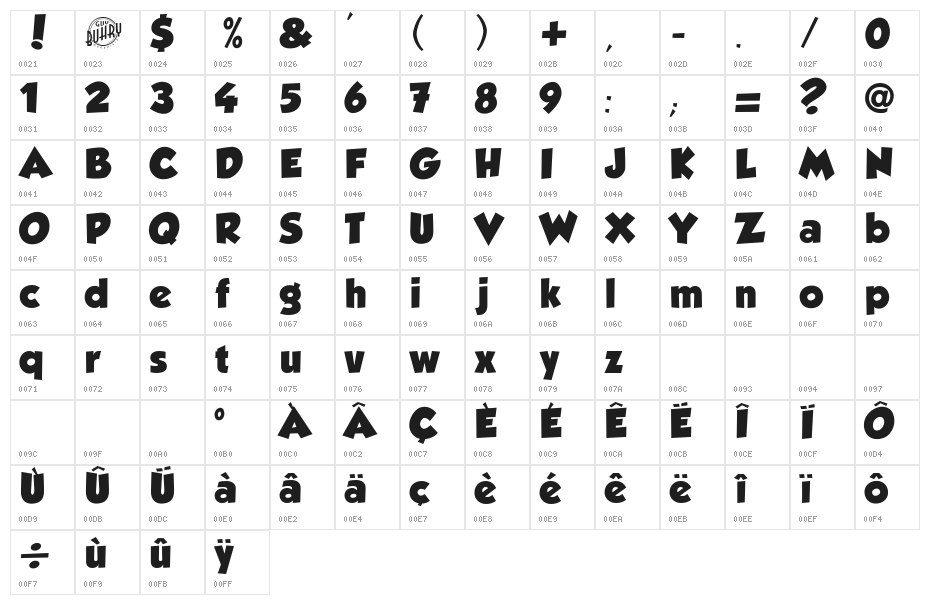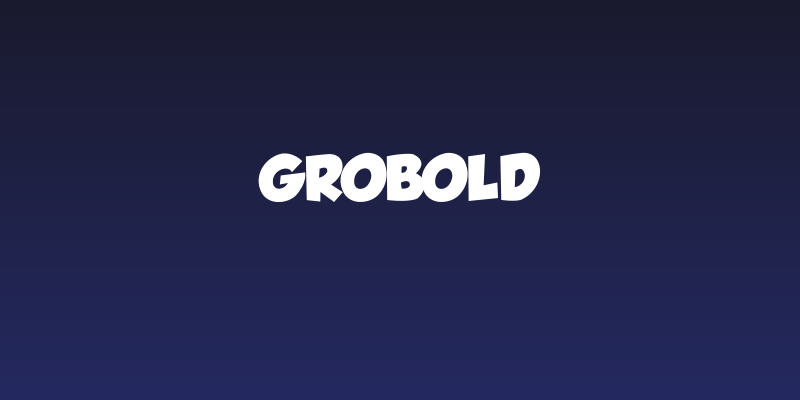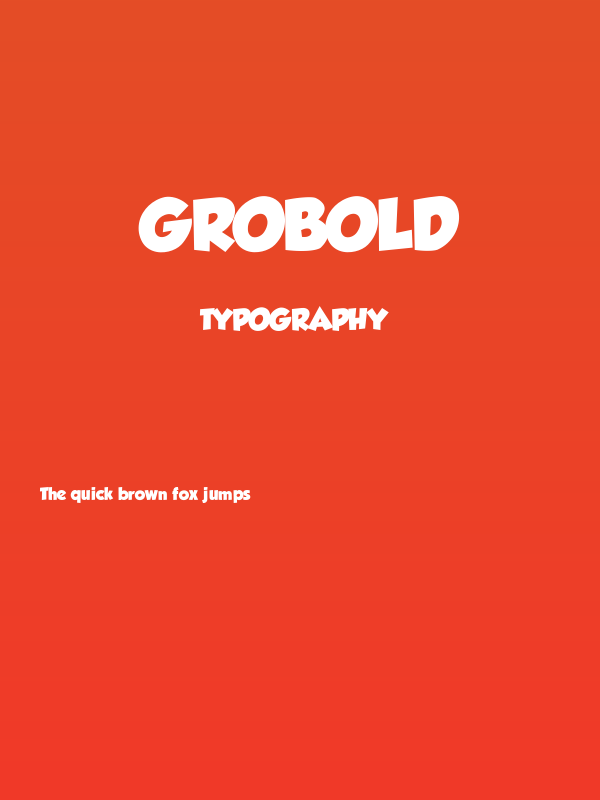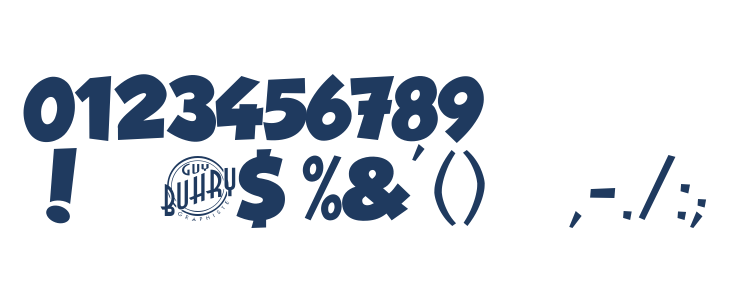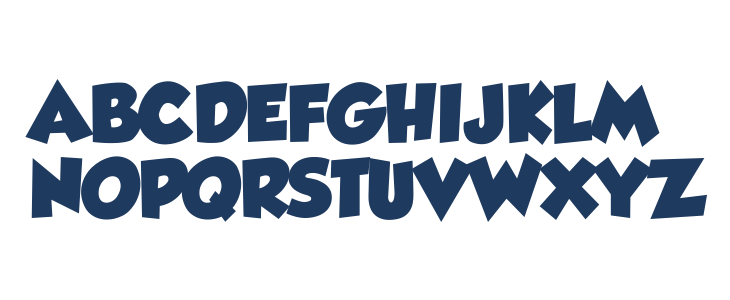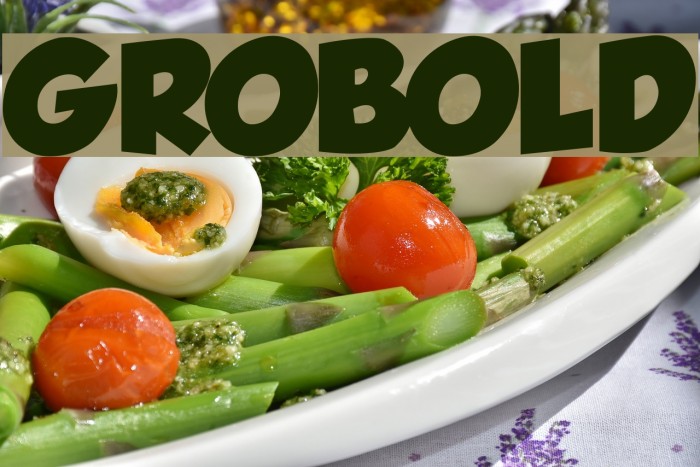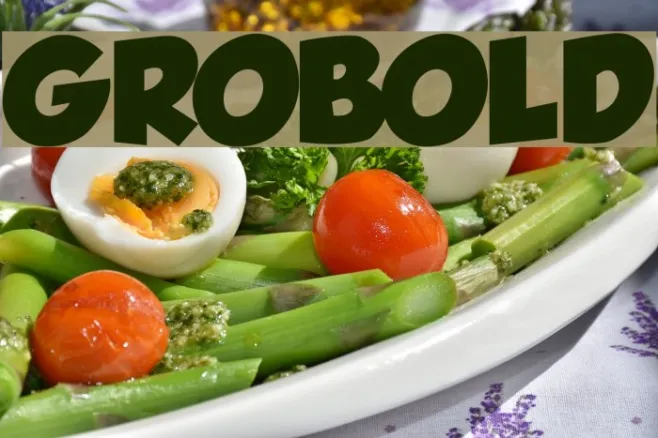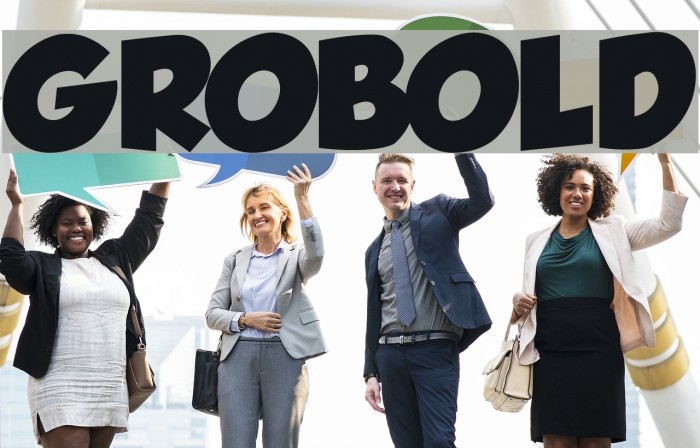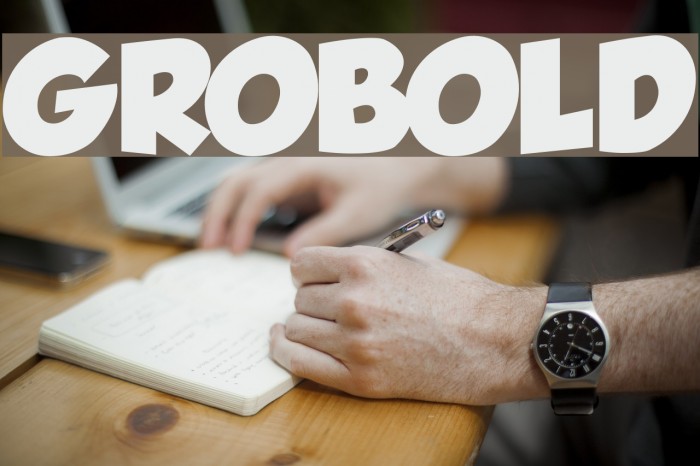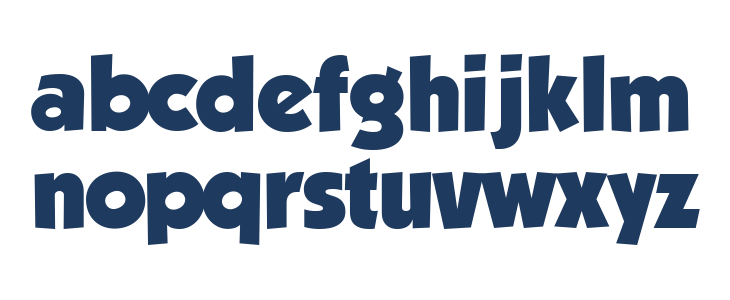
GROBOLD Font
GROBOLD Description
This font features bold, playful characters with a strong presence, making it ideal for attention-grabbing designs. The uppercase letters are particularly striking, with a slightly condensed style that adds to their impact. The lowercase letters maintain the boldness, ensuring consistency across text. Numbers and special characters are equally robust, contributing to the font's overall cohesive look. The thick strokes and slight angularity give it a modern yet fun appearance, suitable for various creative projects.
| Proposed Projects | Ideal for children's books, comic titles, posters, and playful branding. |